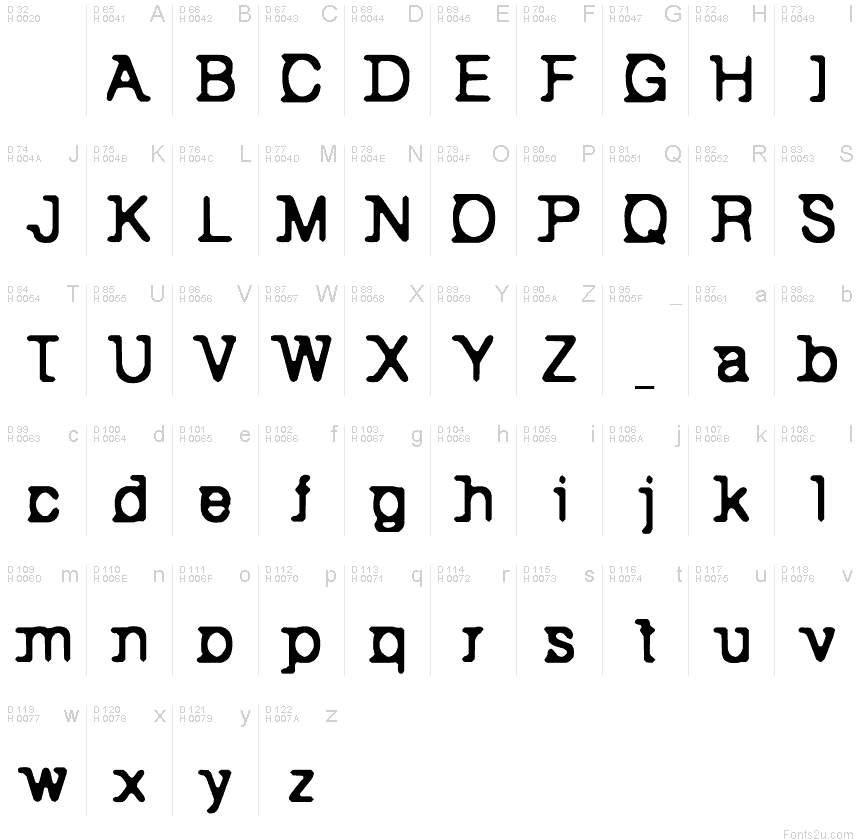
Back to Bay 6
Back to Bay 6 font is a free eroded serif typeface with chunky, inky strokes and irregular contours that feel hand-cut rather than machined. The letters swell and taper in unexpected places, giving each word a rugged, slightly chaotic rhythm that still reads clearly at a glance, especially at larger sizes. Pair it with a clean sans serif in smaller text to keep layouts readable while letting its rough texture carry the mood.
Using Back to Bay 6 in your work adds a scruffy, analog edge that suits projects needing attitude and grit. This free font works beautifully for band posters, zines, streetwear branding, grunge album covers, horror or thriller titles, and bold social graphics. Its dense forms hold up well against busy backgrounds, so you can drop it over photography, textures, or gradients without losing impact.